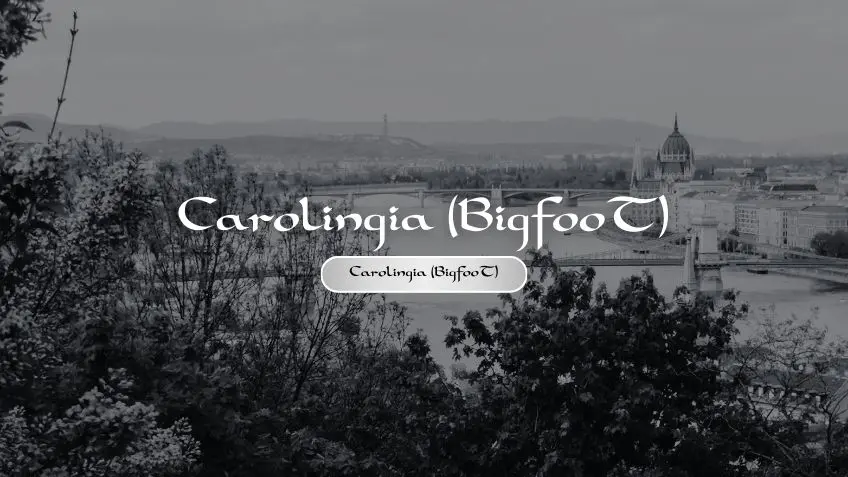
The font Carolingia (BigfooT) Regular, designed by Riky Vampdator, falls under the Handwritten category & Carolingia (BigfooT) font family. Its smooth, flowing letterforms make it a versatile choice for projects that require both elegance and readability. Carolingia (BigfooT) is particularly well-suited for Greeting Cards and Invitations, Craft and DIY Projects, Fantasy and Medieval-themed projects, Creative and decorative design and Artistic and historical works. With its balance of simplicity and decorative appeal, this font brings a polished touch to both personal and professional designs.